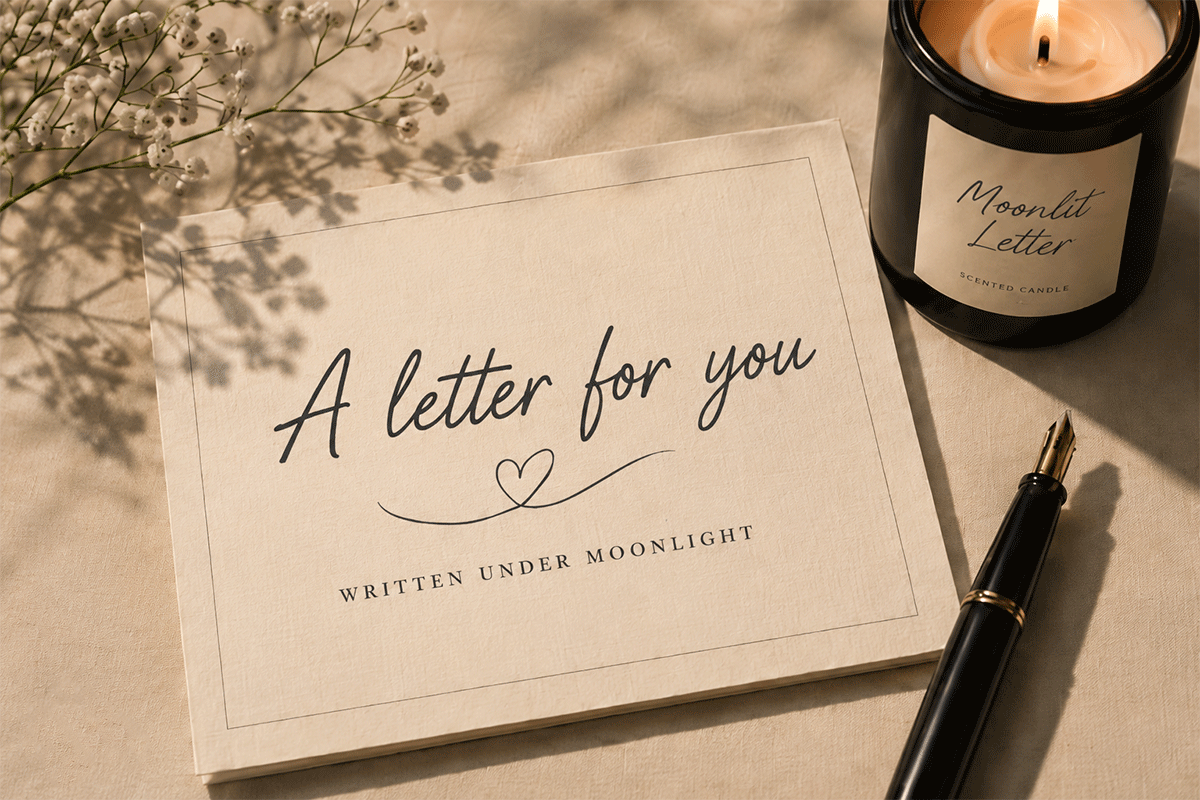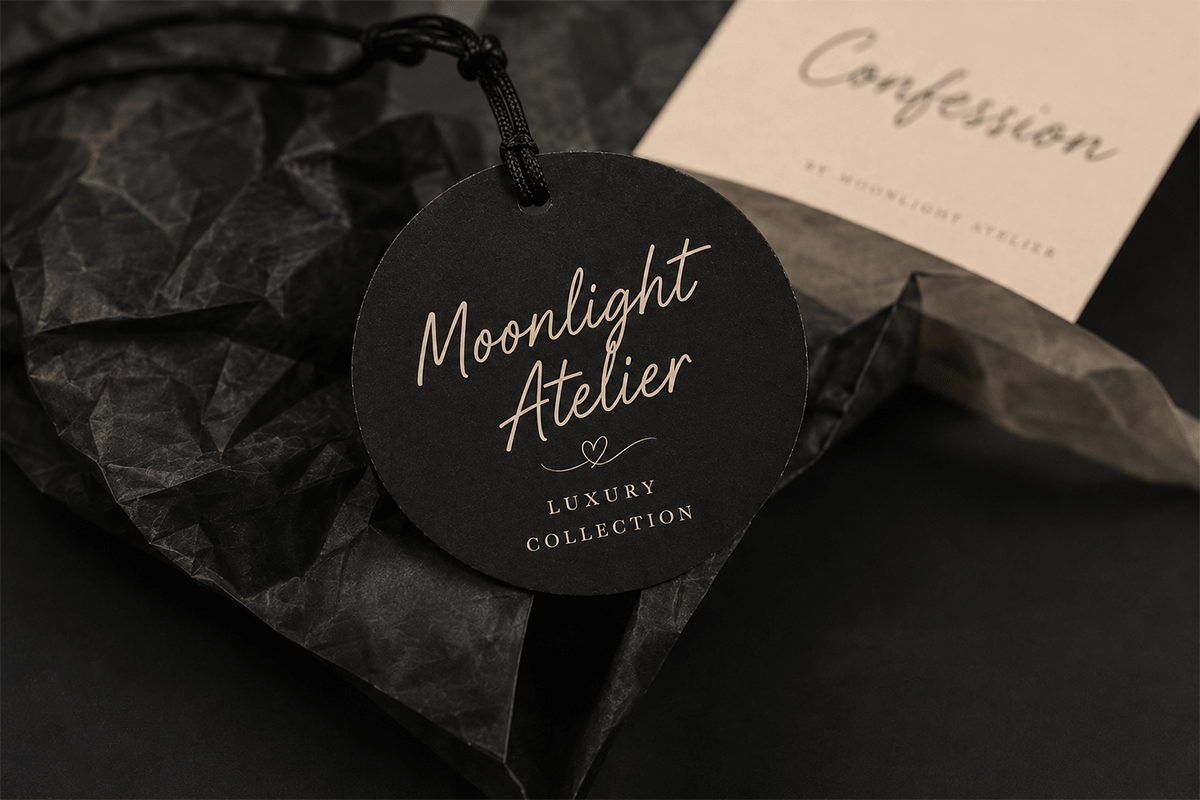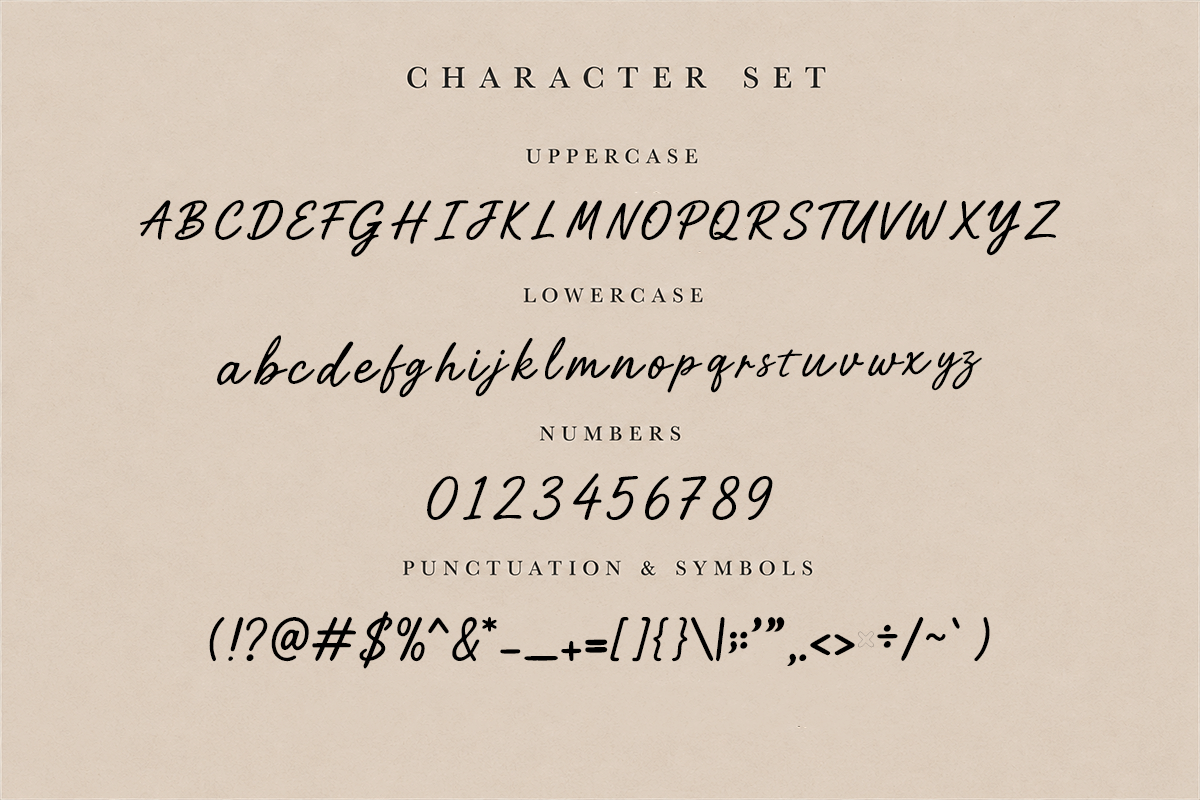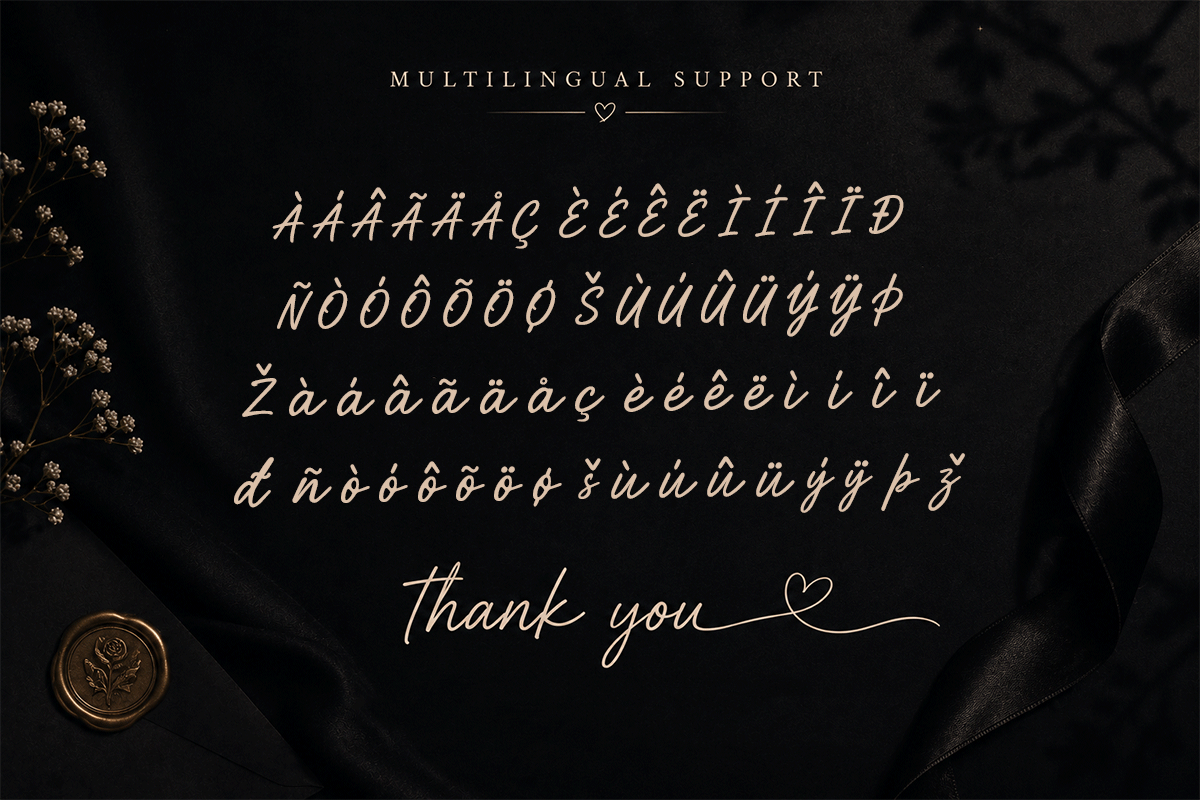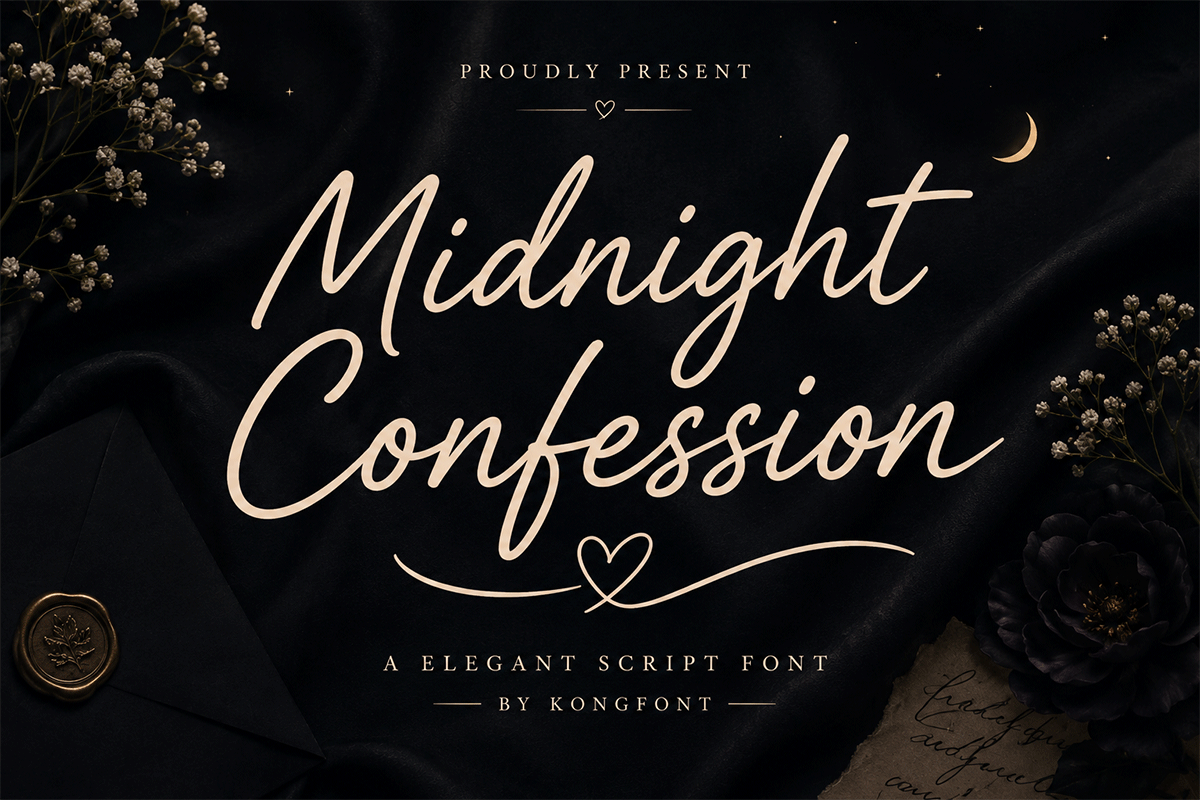
Midnight Confession A Modern Elegant Script Font is an elegant script font with a soft, romantic, and luxurious handwritten style. Its flowing curves and graceful strokes create a beautiful impression that feels intimate, classy, feminine, and full of emotion.
This font carries a modern calligraphy touch, making it perfect for designs that need a romantic, elegant, and sophisticated look. Each letter feels natural yet refined, giving your design a personal and exclusive character.
Midnight Confession A Modern Elegant Script Font is ideal for wedding invitations, beauty brand logos, perfume packaging, fashion branding, greeting cards, romantic quotes, elegant posters, product labels, photography watermarks, and social media designs.